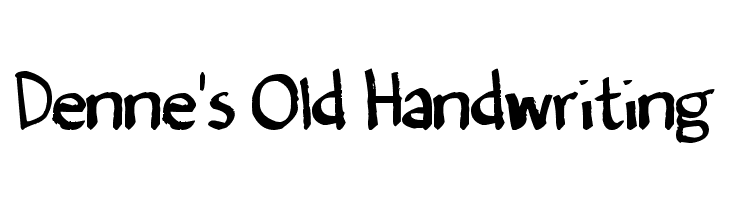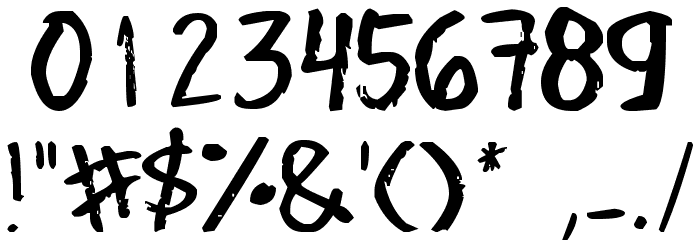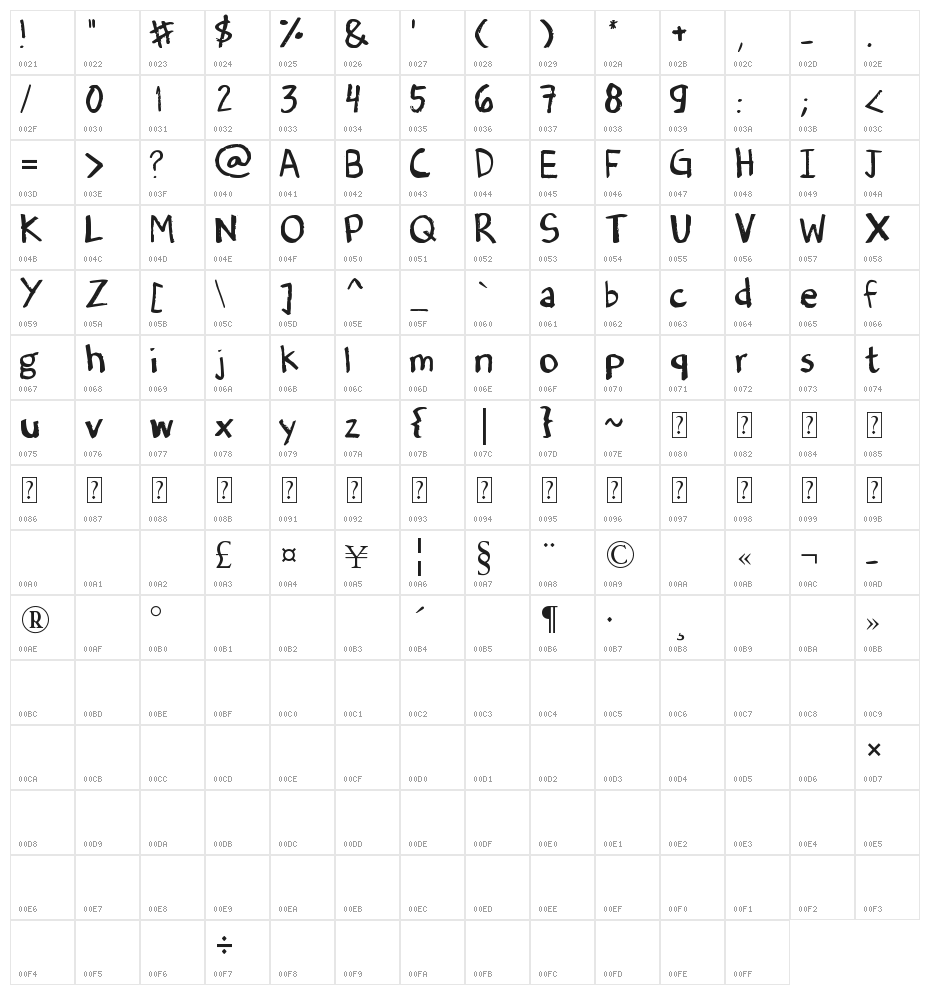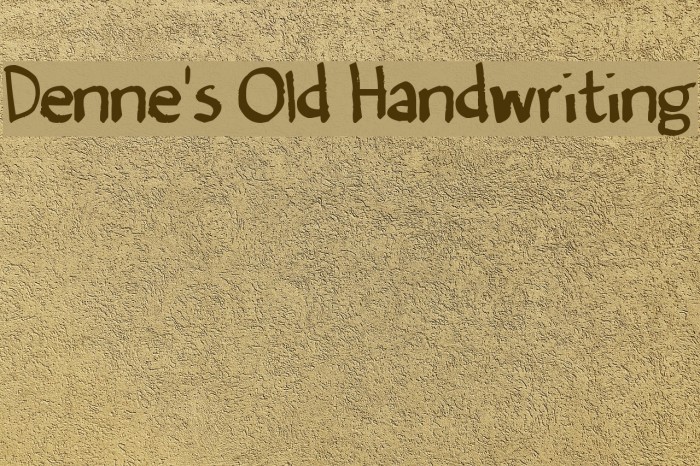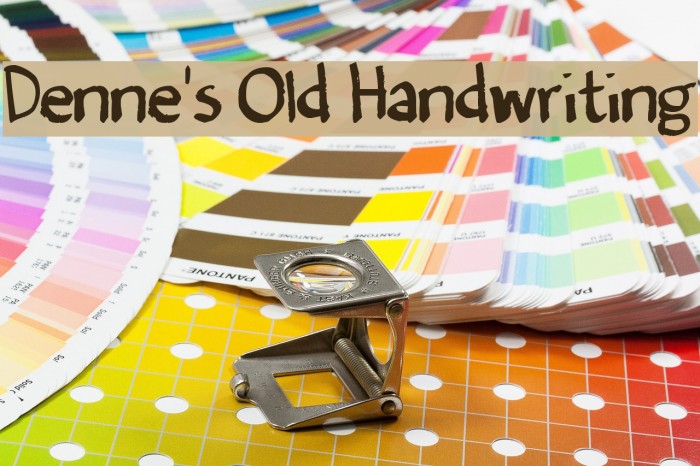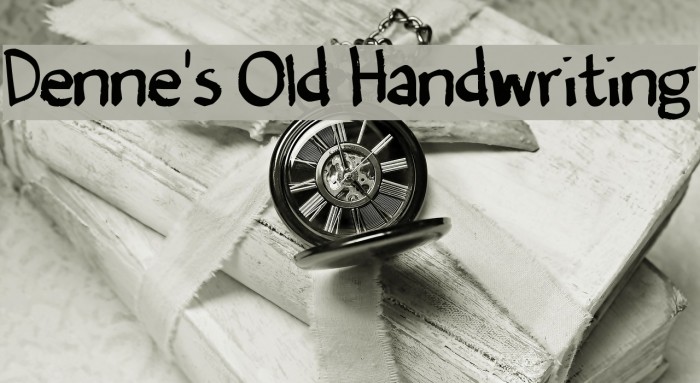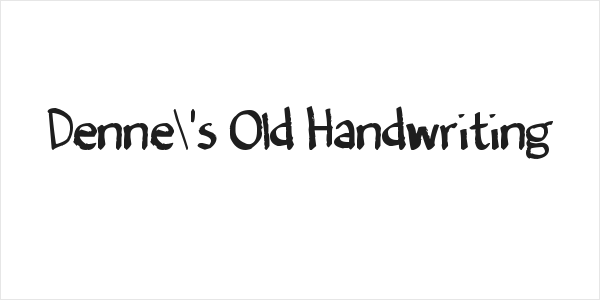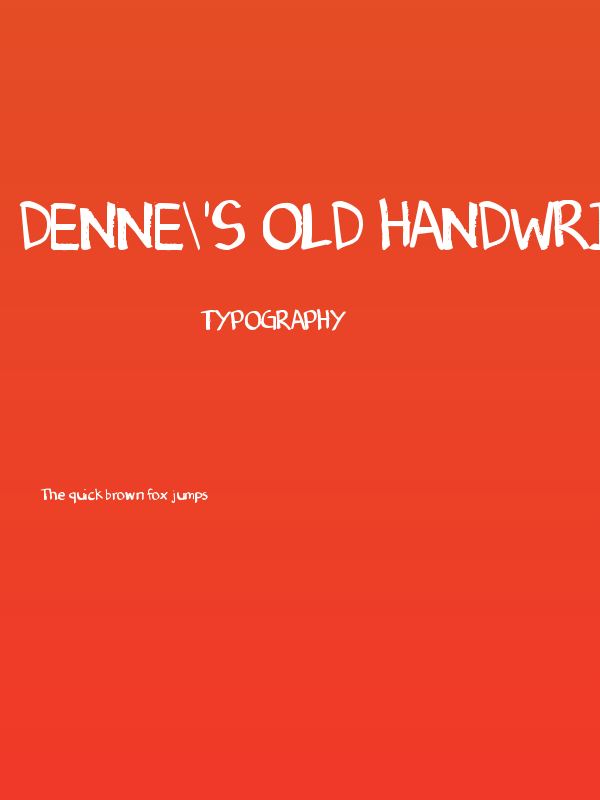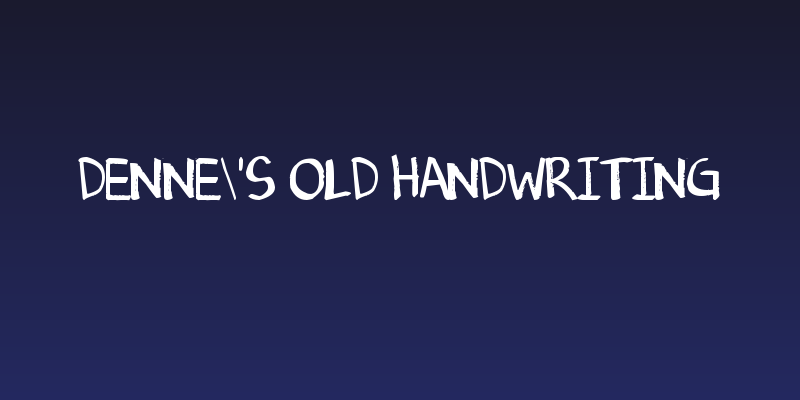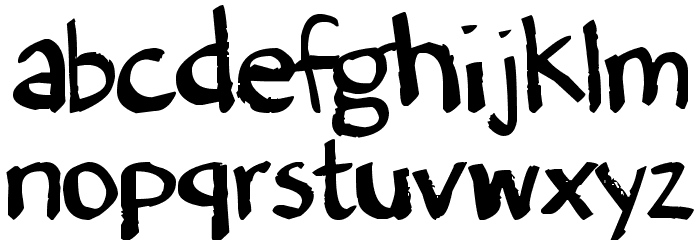
Denne's Old Handwriting Font
Denne's Old Handwriting Description
This font exudes a rustic, hand-drawn charm, reminiscent of old handwritten notes. The letters are bold and slightly irregular, giving them a lively and dynamic appearance. The strokes are thick and uneven, adding to the authentic handwritten feel. Uppercase and lowercase letters maintain a consistent style, with rounded edges and a playful, casual demeanor. Numbers and special characters follow the same aesthetic, ensuring a cohesive look across all text. This font is perfect for projects that require a personal touch, evoking nostalgia and warmth.